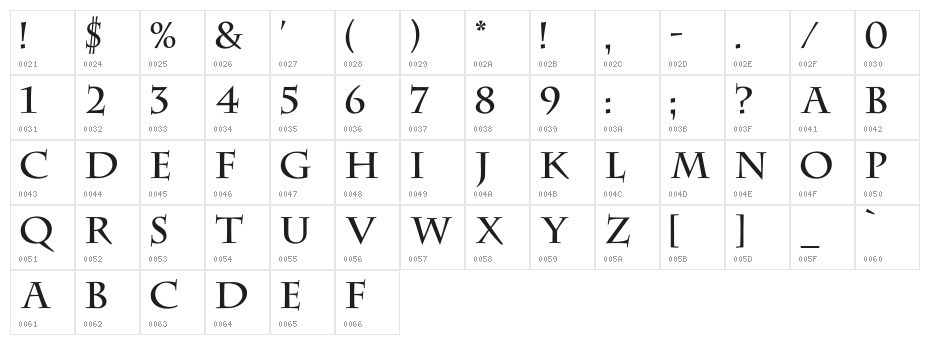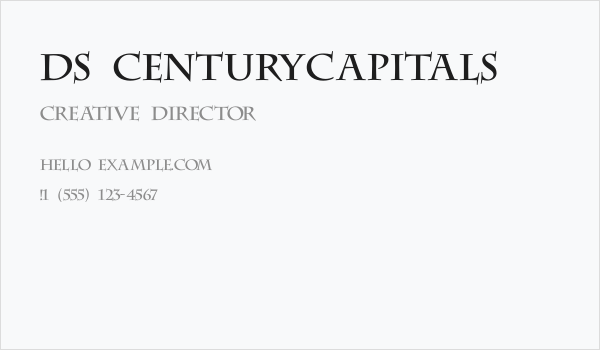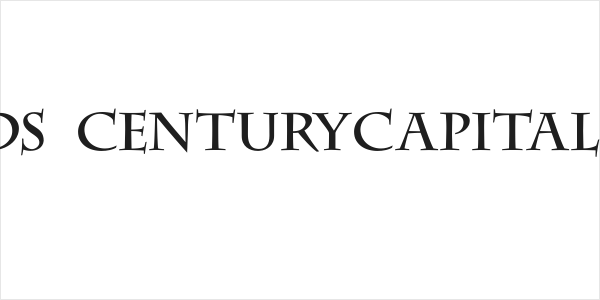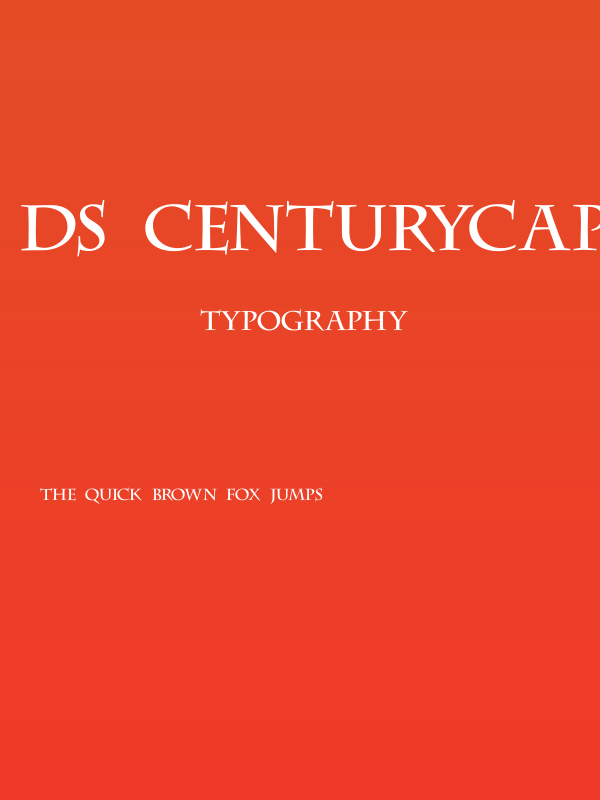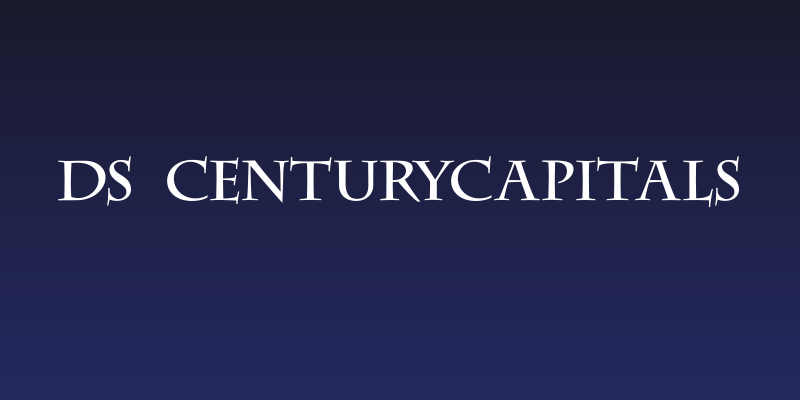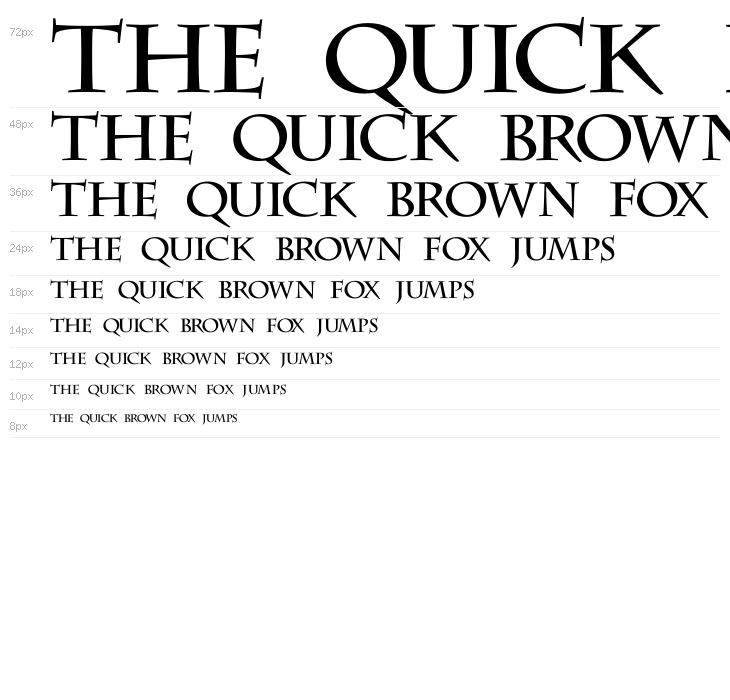
DS CenturyCapitals Font
This font features a classic serif style with elegant and refined letterforms. The serifs are pronounced and slightly curved, adding a touch of sophistication. The characters are well-proportioned, with a balanced weight that ensures readability. The numerals are distinct and clear, maintaining the font's overall elegance. Special characters are designed with the same attention to detail, ensuring consistency across all glyphs. This font exudes a timeless quality, making it suitable for a variety of formal and professional applications.
Proposed ProjectsIdeal for use in formal documents, book titles, invitations, and branding materials that require a touch of sophistication.